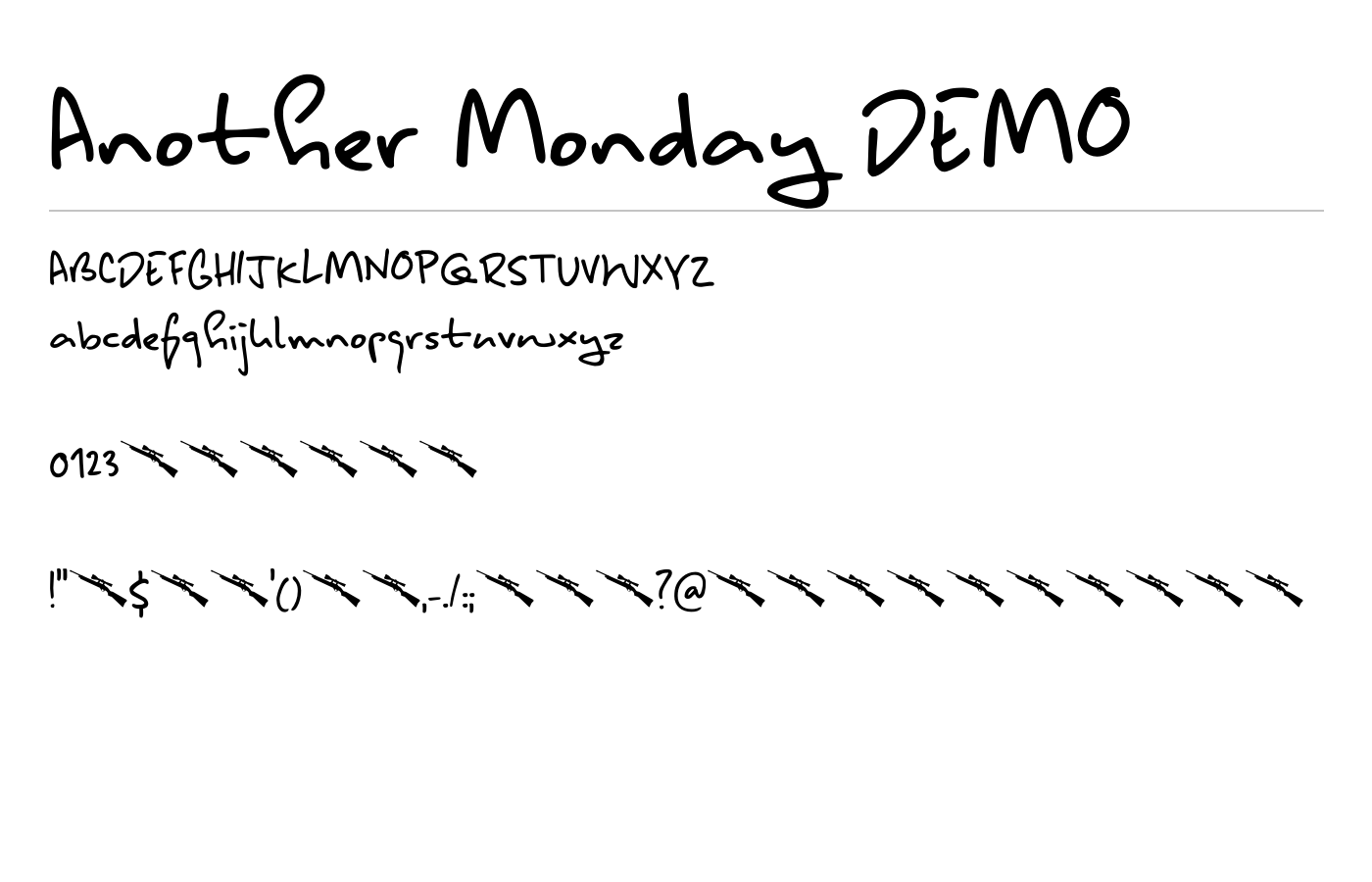
Another Monday DEMO is a casual, handwritten sans serif font with a playful and informal vibe. Its tall, narrow letterforms feature a light weight with uneven strokes and organic curves that evoke a personal, hand-drawn feel, making it ideal for projects that seek a friendly and approachable look. This font works well for creative logos, informal branding, and fun editorial pieces where personality and warmth are desired.
Another Monday DEMO Font
About Another Monday DEMO Font